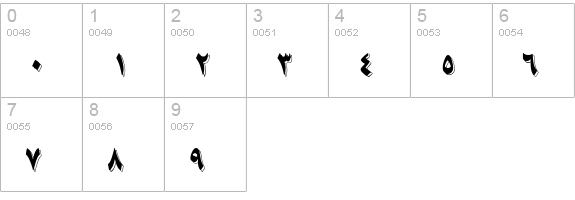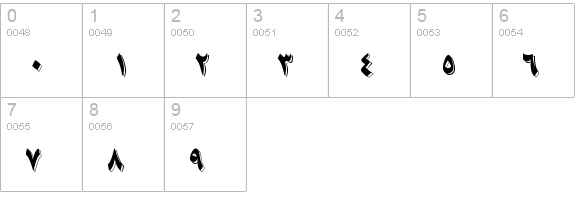
B Nikoo Font Details
B Nikoo font is a sleek and modern typeface that exudes elegance and sophistication. With its clean lines and stylish curves, this font is perfect for a wide range of design projects, from branding to advertising to web design. Whether you're looking to create a professional logo or craft a visually striking poster, B Nikoo font is sure to make your work stand out. The best part? B Nikoo font is completely free to download at FontsMarket.com! This means you can access this beautiful typeface without any cost, making it a fantastic choice for designers on a budget. Don't miss out on the opportunity to enhance your projects with the stunning B Nikoo font - download it today and take your designs to the next level!